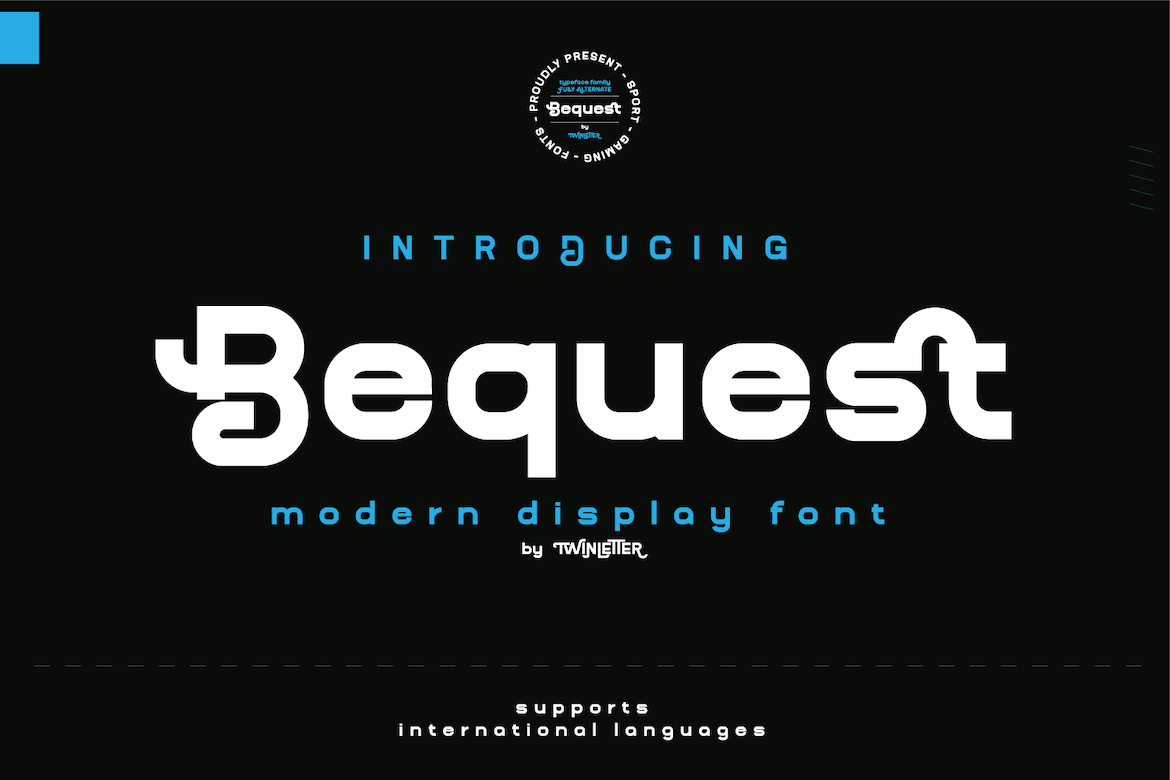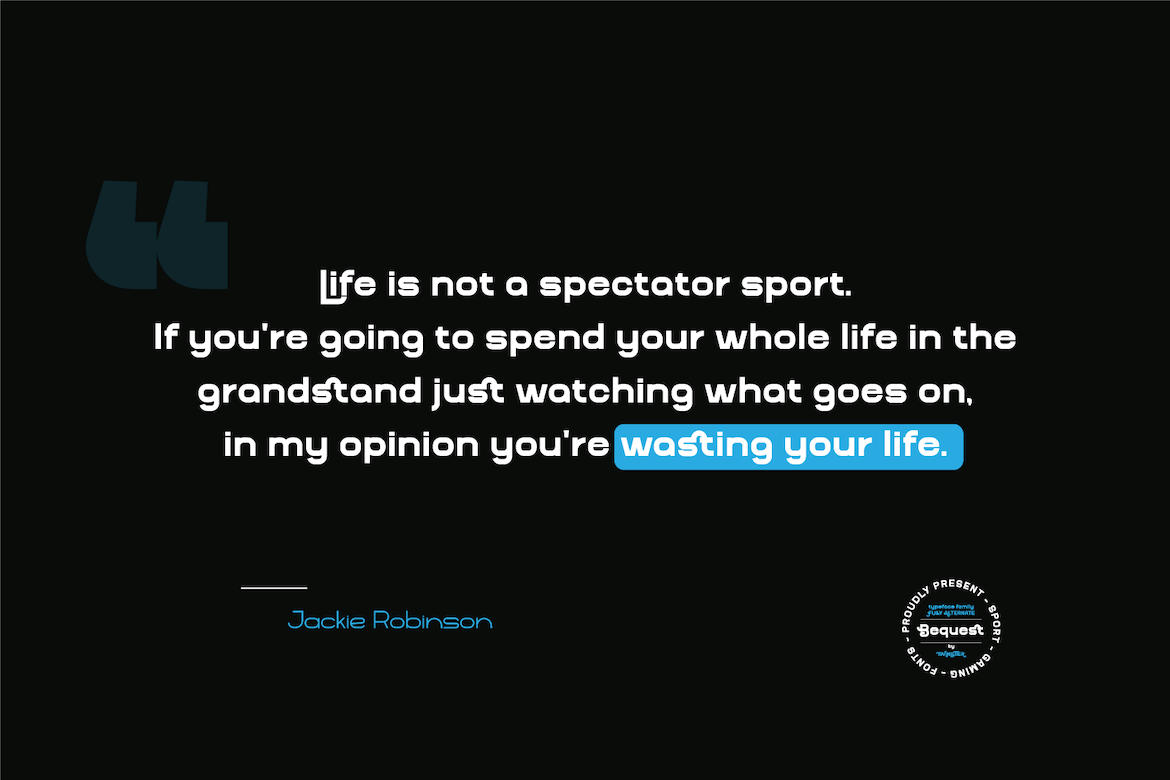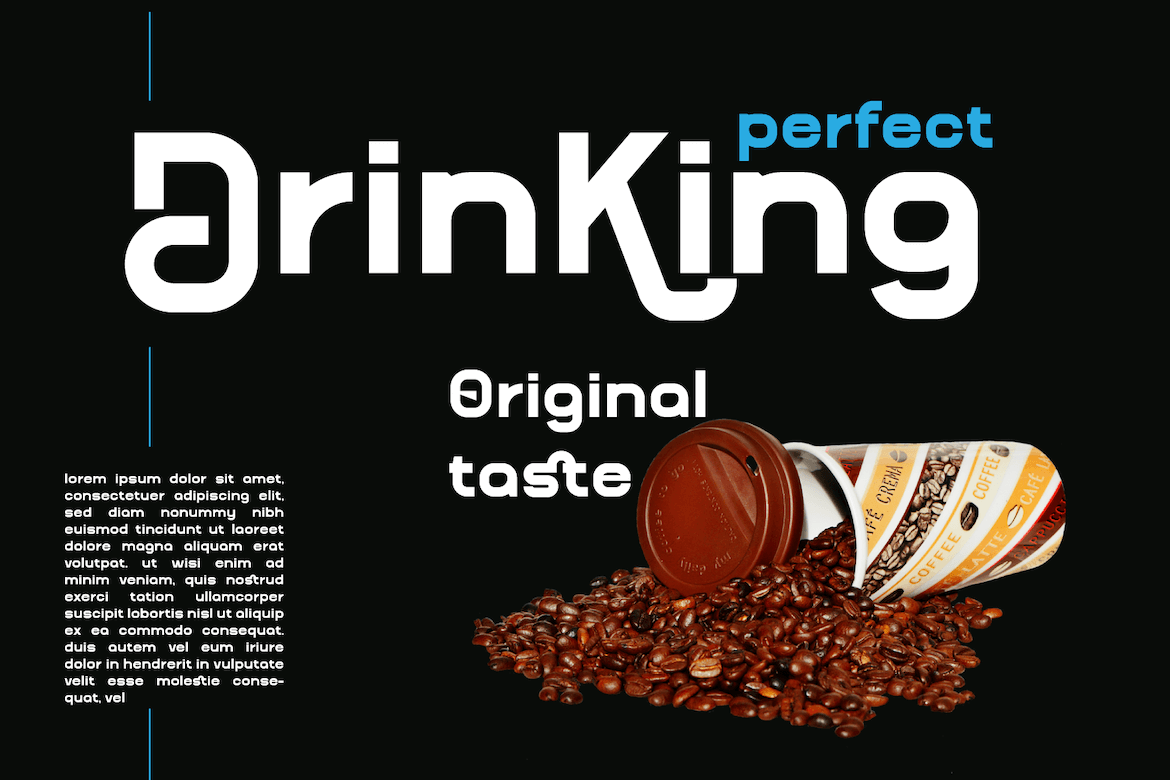
Bequest
Introducing our newest font called Bequest,
This san serif family font is perfect for your various projects, such as games, sporting events, branding, banners, posters, movie titles, food and beverage, technology, quotes, clothing, types of logos, and more. of course, your various design projects will be perfect and extraordinary if you use this font because this font is equipped with a complimentary font family, both for titles and subtitles, and sentence text.